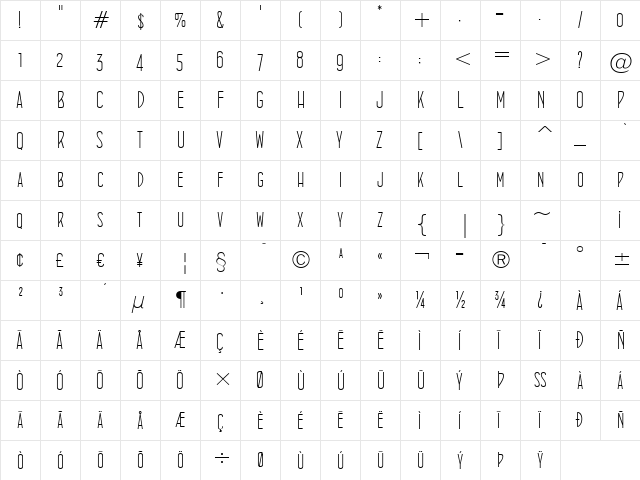
ConcursoItalian BTN Lt Regular
Design Context for ConcursoItalian BTN Lt Typeface
ConcursoItalian BTN Lt is a composed and adaptable typeface that performs quietly and consistently across a wide range of design contexts. Its slender proportions lend an understated elegance to any composition.